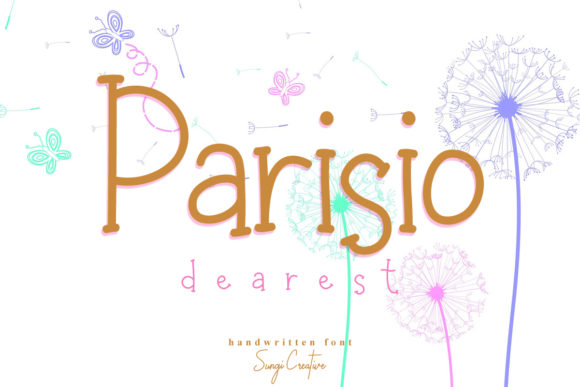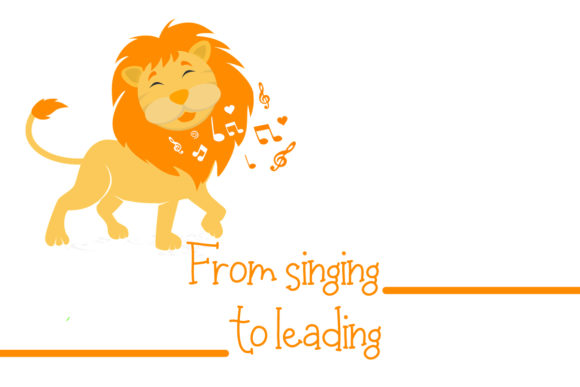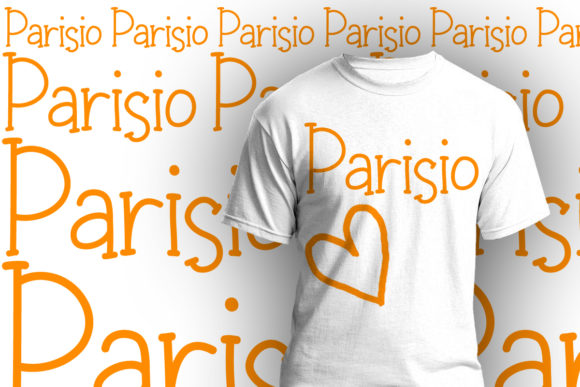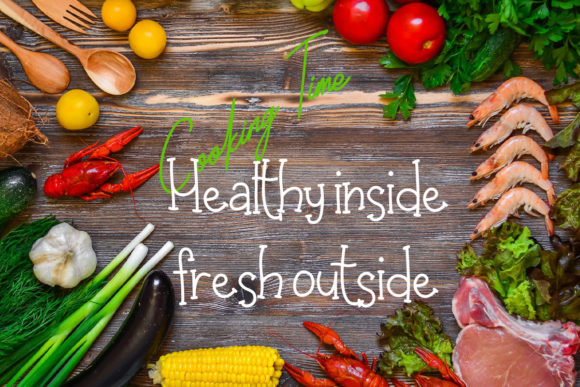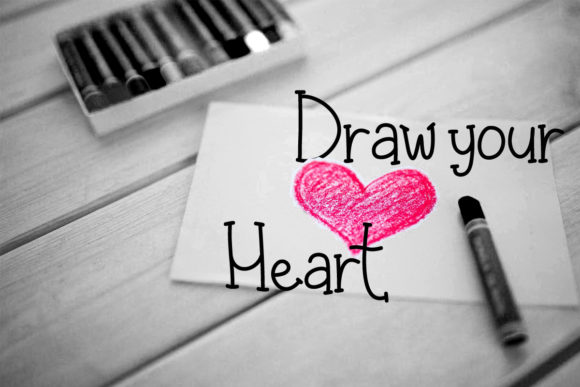
Parisio Font
About Parisio Font
Parisio is a beautiful and cute handwritten font with a unique feel. This enchanting font will turn any creative idea into a true standout.